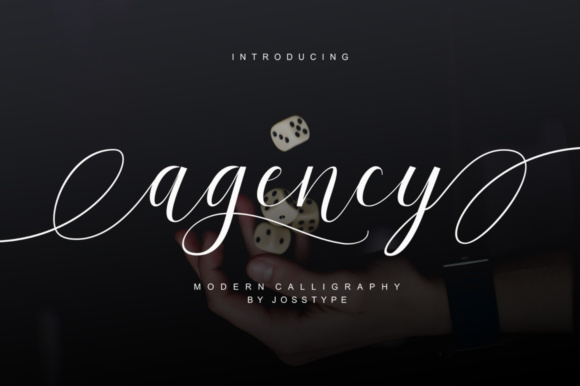
The Elegance of Agency Script Font: A Designer’s Delight
I still remember the time I was working on a wedding invitation project, and my client asked for a font that exuded elegance and sophistication. I scoured the internet, tried out countless fonts, but nothing seemed to fit the bill. That was until I stumbled upon the Agency Script Font. It was love at first sight! 💕 The flowing curves, the classic feel, and the versatility of this font made it an instant favorite. In this article, I’ll share my experience with the Agency Script Font, its features, and how to make the most of it in your designs.
A Personal Review: What I Love and What I Don’t
- ✅ Elegant and sophisticated: The Agency Script Font has a timeless feel that’s perfect for high-end projects, weddings, and formal events.
- ✅ Versatile: This font can be used for a wide range of projects, from digital designs to print materials, and even embroidery or crafting.
- ✅ Easy to read: Despite its elegant feel, the Agency Script Font is surprisingly legible, even at smaller font sizes.
- ✅ OpenType features: This font comes with a range of OpenType features, including stylistic alternates, ligatures, and glyphs, which can add an extra layer of creativity to your designs.
- ⚠️ Limited use in body text: While the Agency Script Font is beautiful, it’s not the best choice for long blocks of body text. It’s better suited for headings, titles, and short paragraphs.
- ⚠️ May not work well with bold or bright colors: The elegant feel of this font can be overpowered by bold or bright colors. It’s best paired with more muted or pastel shades.
The Story Behind Agency Script Font
The Agency Script Font was designed by Jimmy Amis , a renowned type designer. The font was inspired by classic script fonts from the early 20th century, with a modern twist. The result is a elegant, sophisticated font that’s perfect for a wide range of projects.
Q: What is the Agency Script Font?
A: The Agency Script Font is a handwritten typeface with classical roots. It’s formal, elegant, and suitable for a large range of different projects.
Q: Is the Agency Script Font suitable for body text?
A: While the Agency Script Font is beautiful, it’s not the best choice for long blocks of body text. It’s better suited for headings, titles, and short paragraphs.